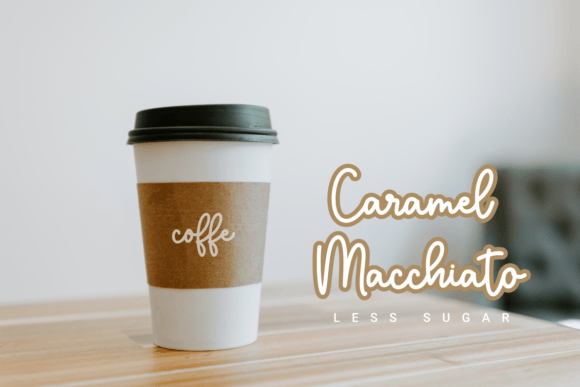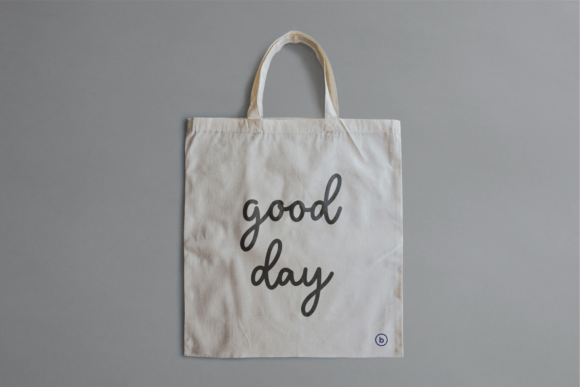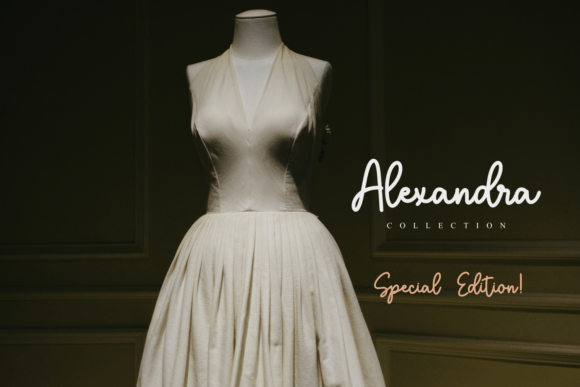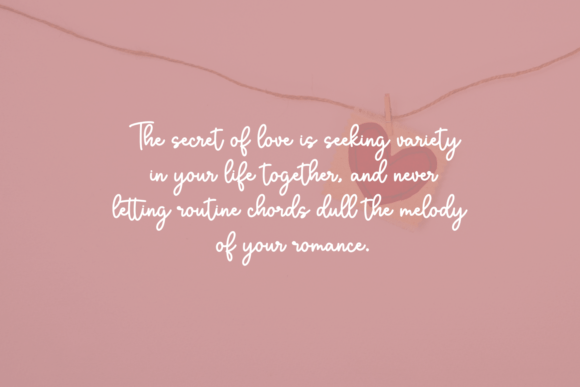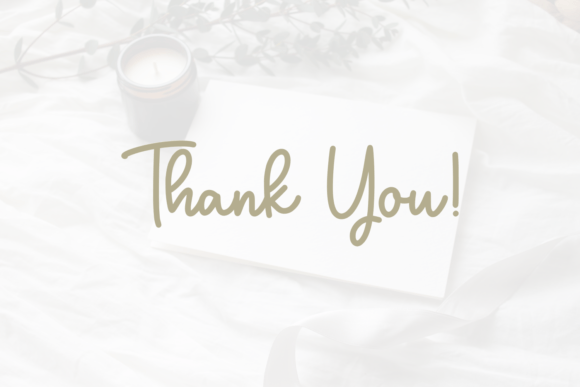
Introducing Bolacastie Font: Elevate Your Designs with a Sweet Monoline Style
Are you a designer or crafter looking for a unique and stylish font to take your projects to the next level? Look no further than Bolacastie Font! This sweet monoline font is designed to add a touch of elegance and sophistication to your logos, labels, branding, invitations, websites, quotes, and more. With its clean lines and effortless charm, Bolacastie Font is sure to make your designs stand out from the crowd.
What Makes Bolacastie Font So Special?
Bolacastie Font is more than just a beautiful font – it’s also incredibly versatile and easy to use. This font is PUA encoded, which means you can access all of the glyphs and swashes with ease. This makes it simple to customize your designs and add your own personal touch. Whether you’re a seasoned designer or just starting out, Bolacastie Font is a great choice for anyone looking to elevate their designs.
Endless Design Possibilities with Bolacastie Font
One of the best things about Bolacastie Font is its endless design possibilities. This font can be used for a wide range of projects, from logos and branding to invitations and websites. Here are just a few ideas to get you started:
- Logos and Branding: Use Bolacastie Font to create a unique and memorable logo for your business or brand. Its clean lines and elegant style make it perfect for companies looking to establish a professional image.
- Invitations and Stationery: Add a touch of sophistication to your invitations and stationery with Bolacastie Font. Its monoline style is perfect for creating beautiful and elegant designs.
- Websites and Blogs: Use Bolacastie Font to add a touch of style to your website or blog. Its clean lines and effortless charm make it perfect for creating a professional and modern look.
- Quotes and Graphics: Use Bolacastie Font to create beautiful and inspiring quotes and graphics. Its elegant style is perfect for sharing motivational messages and adding a touch of style to your social media posts.
Why Choose Bolacastie Font?
So why choose Bolacastie Font over other fonts on the market? Here are just a few reasons why designers and crafters love this font:
- Unique and Stylish: Bolacastie Font is a unique and stylish font that will add a touch of elegance to your designs.
- Easy to Use: This font is PUA encoded, making it easy to access all of the glyphs and swashes.
- Versatile: Bolacastie Font can be used for a wide range of projects, from logos and branding to invitations and websites.
- High-Quality: This font is designed to be high-quality and professional, making it perfect for designers and crafters who want to create stunning designs.
In conclusion, Bolacastie Font is a sweet monoline font that is sure to elevate your designs and make them a true standout. With its clean lines, effortless charm, and endless design possibilities, this font is perfect for designers and crafters who want to add a touch of elegance and sophistication to their projects. So why wait? Download Bolacastie Font today and start creating stunning designs that will leave a lasting impression!
Key Features of Bolacastie Font
- Sweet monoline font
- Endless design possibilities
- Perfect for logos, labels, branding, invitations, websites, quotes, and more
- Unique and stylish
- Easy to use
- Versatile
- High-quality